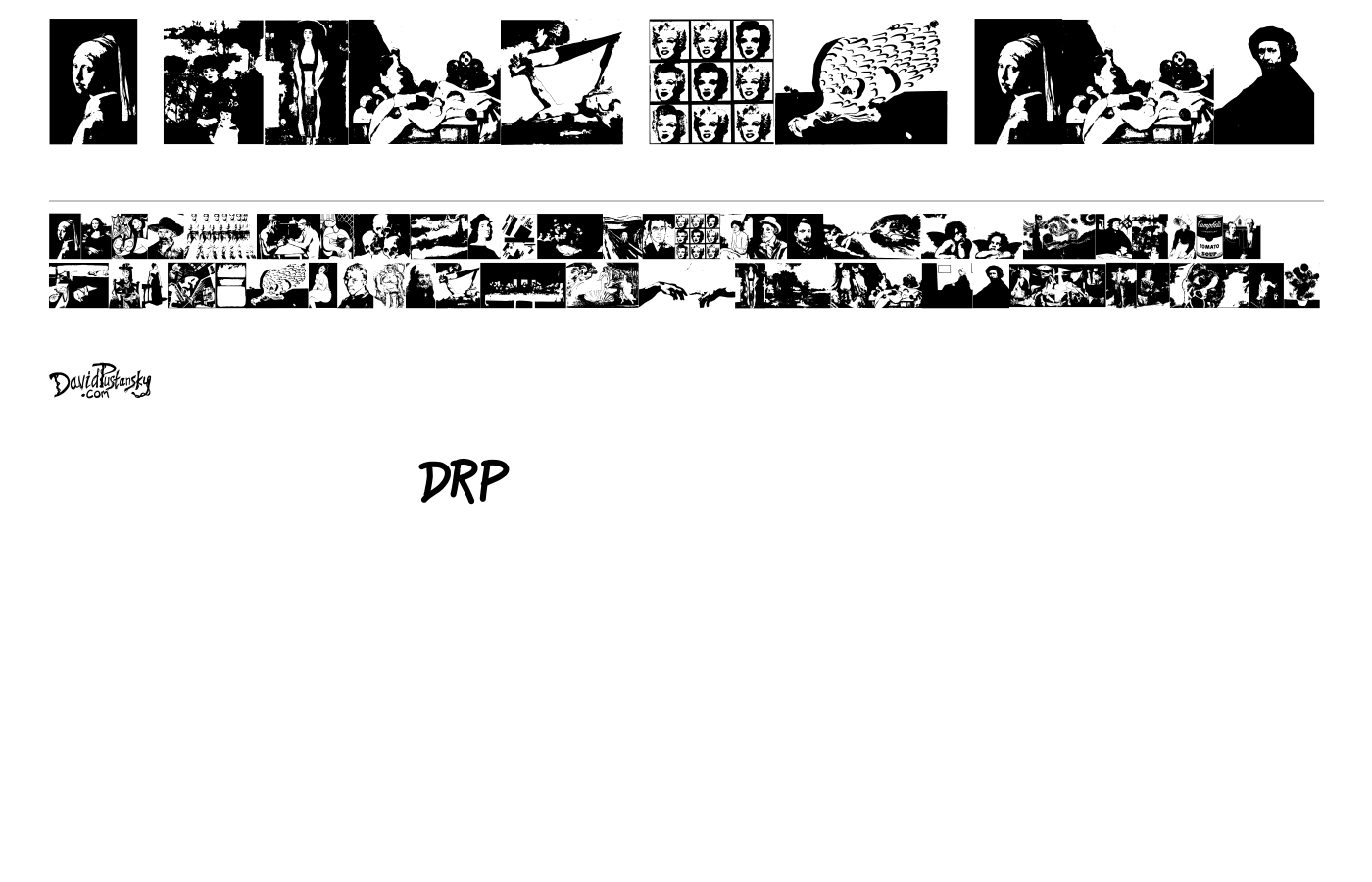
A Work Of Art font is a unique decorative typeface composed of detailed artistic images instead of traditional letterforms, making it visually rich and highly creative. This font works best for projects that aim to blend typography with fine art, such as posters, creative branding, or editorial designs that want to convey a sophisticated, artistic vibe. Its intricate imagery-based style adds depth and character but is best used in larger sizes for maximum impact rather than body text.
A Work Of Art Font
About A Work Of Art Font